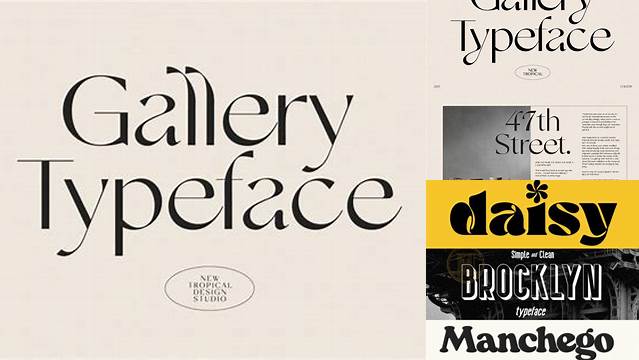
Gallery Modern Font Free: Your Ultimate Guide
Gallery modern fonts free are a cornerstone of contemporary design, offering a sleek, sophisticated, and versatile aesthetic for a wide range of applications. From branding and advertising to web design and editorial layouts, modern fonts play a crucial role in conveying a sense of innovation, clarity, and elegance. In this comprehensive guide, we will explore the characteristics of modern fonts, their historical roots, popular styles, and where to find them for free, ensuring you can elevate your projects with the perfect typographic choice. Understanding the nuances of gallery modern fonts free will empower you to make informed decisions that enhance the visual appeal and readability of your work, while also saving on costs by utilizing freely available resources. So, let’s dive into the world of modern typography and discover how you can leverage these fonts to create stunning designs.
Modern fonts free are characterized by their clean lines, sharp serifs (or lack thereof in sans-serif versions), and a generally minimalist aesthetic. These fonts often exude a sense of sophistication and simplicity, making them ideal for projects that require a contemporary feel. The term "modern" in typography refers to a specific classification that emerged in the late 18th century, but the principles of modern design have continued to evolve and influence font creation to this day. Key features of gallery modern fonts free include high contrast between thick and thin strokes, geometric shapes, and a focus on legibility. These characteristics make them well-suited for both display purposes (such as headlines and logos) and body text, depending on the specific style and application. When selecting modern fonts free, it’s essential to consider the overall tone and message of your design. The right font can reinforce your brand identity, improve user experience, and ensure your content is both visually appealing and easy to read. By understanding the unique attributes of modern fonts free, you can effectively incorporate them into your projects and achieve a polished, professional look.
Modern fonts free have a rich history that dates back to the late 18th and early 19th centuries. The emergence of modern typefaces, also known as Didone fonts, marked a significant departure from the more ornate and calligraphic styles that preceded them. This typographic revolution was largely driven by the pursuit of clarity and precision, reflecting the Enlightenment era's emphasis on reason and order. Key figures in the development of gallery modern fonts free include Firmin Didot and Giambattista Bodoni, whose eponymous typefaces—Didot and Bodoni—became iconic examples of the modern style. These fonts featured stark contrasts between thick and thin strokes, unbracketed serifs, and a vertical stress, creating a striking visual impact. The influence of these early modern fonts free can still be seen in many contemporary typefaces, demonstrating their enduring appeal and relevance. Understanding the historical context of modern fonts free provides valuable insight into their design principles and how they have evolved over time. This knowledge allows designers to appreciate the craftsmanship and innovation that went into creating these typefaces and to use them effectively in modern design projects. The legacy of Didot and Bodoni continues to inspire font designers today, shaping the landscape of modern typography.
When it comes to modern fonts free, there’s a diverse range of styles to choose from, each with its unique characteristics and best-use cases. One popular style is the geometric sans-serif, characterized by its clean, minimalist lines and geometric shapes. Fonts like Futura and Montserrat fall into this category and are often used for logos, headlines, and branding materials. These modern fonts free offer a contemporary feel and excellent readability, making them a versatile choice for various design applications. Another prominent style is the neo-grotesque sans-serif, which includes fonts like Helvetica and Arial. These typefaces are known for their neutrality and legibility, making them ideal for body text and user interfaces. While they may seem understated, modern fonts free in this style provide a clean and professional look that works well in a wide range of contexts. For those seeking a more elegant and sophisticated option, modern serif fonts such as Didot and Bodoni are excellent choices. These fonts feature high contrast between thick and thin strokes and refined serifs, making them perfect for editorial layouts, fashion branding, and high-end advertising. Understanding the different styles of gallery modern fonts free allows designers to select the most appropriate typeface for their specific project, ensuring the font effectively communicates the intended message and enhances the overall design.
Choosing the right modern font free can significantly impact the success of your design project. The typeface you select should not only be visually appealing but also align with the message and tone you want to convey. Start by considering the purpose of your design. Is it for a website, a logo, a print advertisement, or something else? Different applications may require different font characteristics. For instance, a website may benefit from a highly legible sans-serif font for body text, while a logo might call for a more distinctive and stylized typeface. Think about your target audience and the overall brand identity. A sleek, minimalist font might be perfect for a tech startup, while a more elegant serif font could be better suited for a luxury brand. Consider the font's readability, especially for body text. High contrast between letters and ample spacing can improve legibility, while overly stylized fonts may be difficult to read in large blocks of text. Experiment with different font pairings to see how modern fonts free work together. Pairing a bold headline font with a simpler body text font can create a visual hierarchy and enhance readability. Tools like FontPair and Adobe Fonts' font pairing suggestions can be helpful in this process. Don't be afraid to test out your font choices in the context of your design. See how they look at different sizes and in different layouts. By carefully considering these factors, you can select gallery modern fonts free that elevate your design and effectively communicate your message.
Using modern fonts free effectively involves more than just selecting the right typeface. It's about how you integrate the font into your design to maximize its impact and readability. One key tip is to pay attention to hierarchy. Use different font sizes, weights, and styles to create a clear visual hierarchy that guides the reader through your content. For example, a bold headline in a larger font size will draw attention, while smaller, lighter body text will be easier to read. White space is another crucial element. Ample white space around your text can improve readability and create a sense of balance and elegance. Avoid overcrowding your design with too much text, and make sure there's enough space between lines and paragraphs. Consider the context in which your font will be used. A font that looks great on a poster may not be as effective on a website, and vice versa. Test your font choices in different environments to ensure they remain legible and visually appealing. Be mindful of font pairing. Combining modern fonts free with contrasting or complementary typefaces can add visual interest to your design. However, it's important to choose fonts that work well together and don't clash. Limit yourself to two or three fonts per project to maintain consistency and avoid overwhelming the viewer. Finally, don't be afraid to experiment. Try out different font combinations, sizes, and styles to see what works best for your design. By following these tips, you can harness the power of gallery modern fonts free to create stunning and effective designs.
When working with modern fonts free, it's easy to fall into common pitfalls that can undermine the effectiveness of your design. One frequent mistake is overusing stylized fonts. While unique and decorative typefaces can add personality to your project, using too many of them can create a cluttered and confusing look. Stick to a maximum of two or three fonts per design, and ensure they complement each other. Another common error is ignoring readability. A beautiful font is useless if it's difficult to read. Pay attention to letter spacing, line height, and contrast to ensure your text is legible, especially in body copy. Avoid using light fonts on light backgrounds or overly condensed fonts in small sizes. Poor font pairing is another pitfall. Combining modern fonts free that are too similar or too different can create visual disharmony. Use font pairing tools and resources to find typefaces that work well together, and consider the overall tone and style of your design. Neglecting hierarchy is a common mistake that can make your design feel disorganized. Use different font sizes, weights, and styles to create a clear visual hierarchy that guides the reader through your content. Headings should be larger and bolder than body text, and key information should be emphasized. Lastly, failing to test your font choices in different contexts can lead to unexpected issues. A font that looks great on your computer screen may not translate well to print or mobile devices. Always test your designs across various platforms and devices to ensure they look their best. By avoiding these common mistakes, you can effectively leverage gallery modern fonts free to create professional and visually appealing designs.
In conclusion, gallery modern fonts free are an invaluable asset for designers looking to create contemporary, sophisticated, and visually appealing projects. From their historical roots in the late 18th century to their diverse range of styles available today, modern fonts offer a versatile typographic palette for various design applications. Whether you're working on a website, a logo, a print advertisement, or any other creative endeavor, understanding the characteristics and nuances of modern fonts free will empower you to make informed decisions that enhance your design's impact. Remember to explore the numerous resources available online, such as Google Fonts, Font Squirrel, and DaFont, to discover a wide selection of high-quality, free modern typefaces. By choosing the right font, using it effectively, and avoiding common mistakes, you can elevate your designs and communicate your message with clarity and style. So go ahead, guys, dive into the world of gallery modern fonts free, experiment with different styles, and unleash your creativity to craft visually stunning and effective designs that captivate your audience. Happy designing!